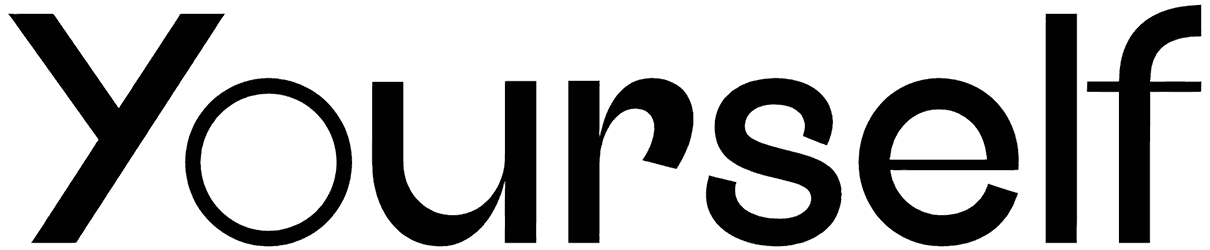
MADE Yourself Font
You will surely love MADE Yourself if you like simplicity and minimal style. This sans serif font has an inherent texture in the letters of the alphabet, where the thickness is unevenly distributed and can give a powerful rustic touch to your projects.
MADE Yourself is a modern sans serif typeface.